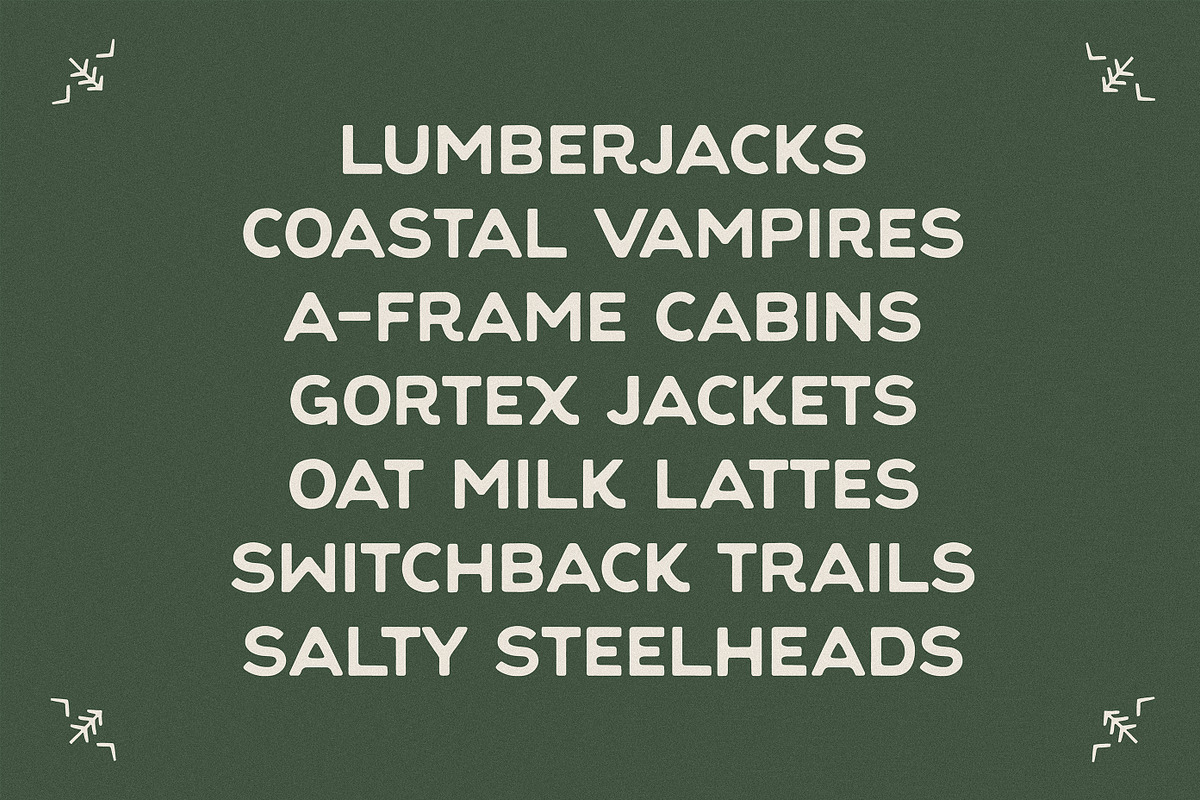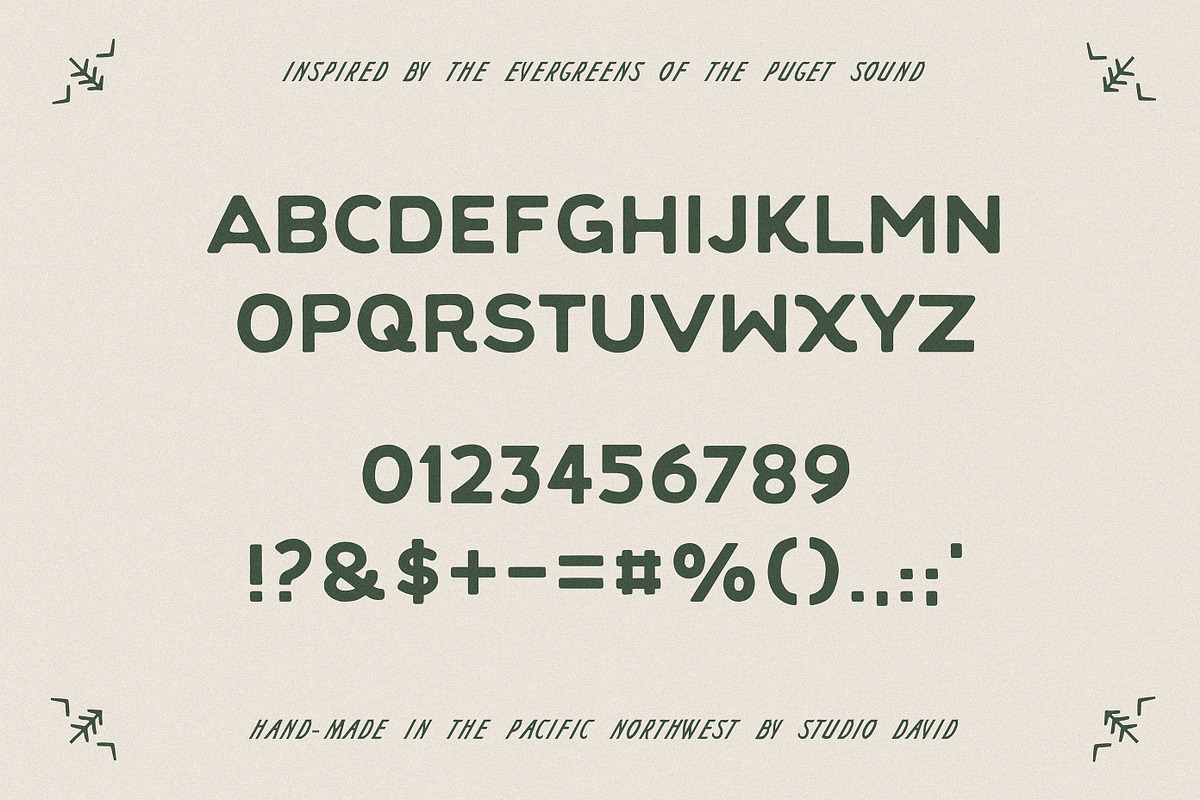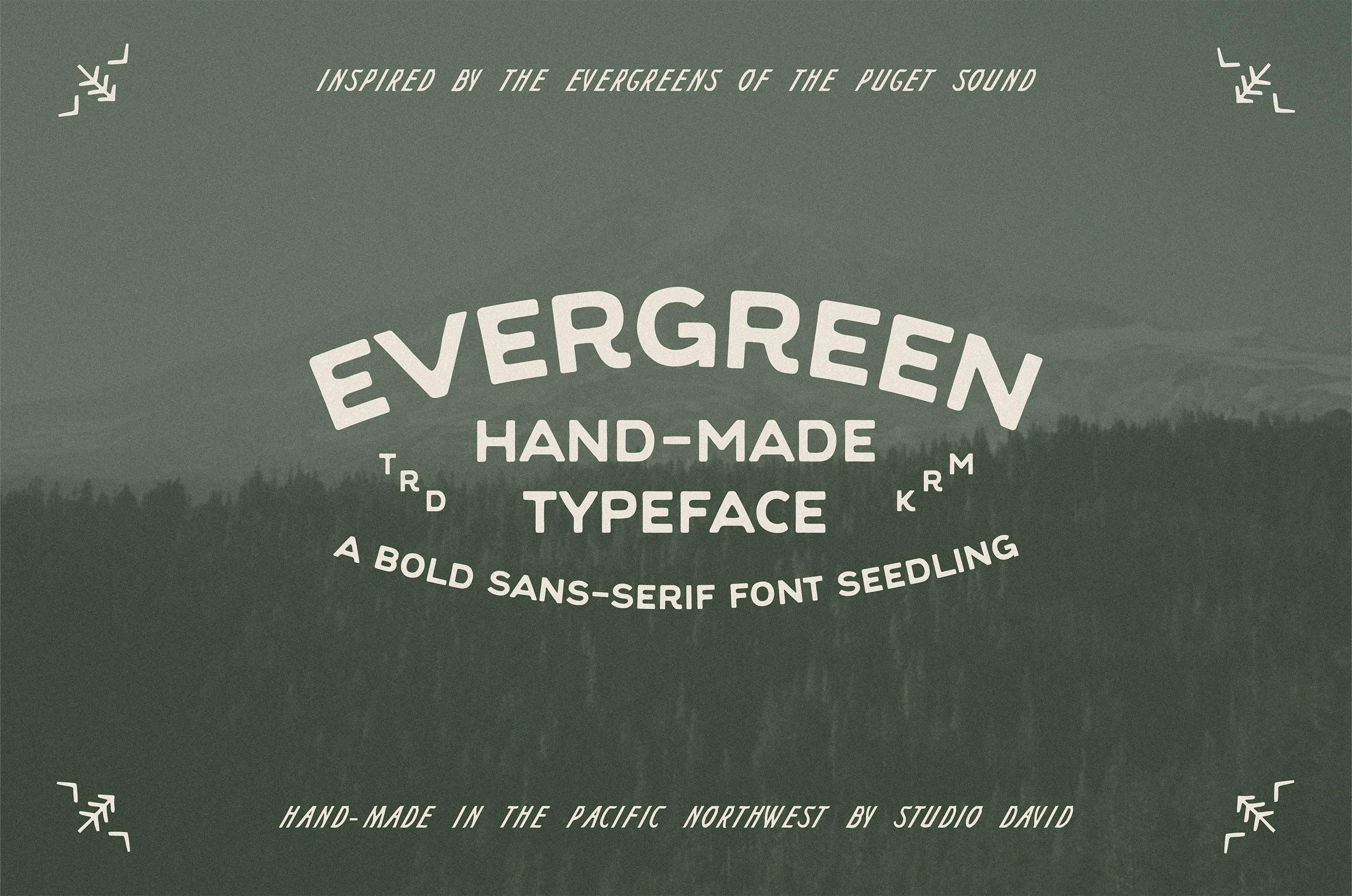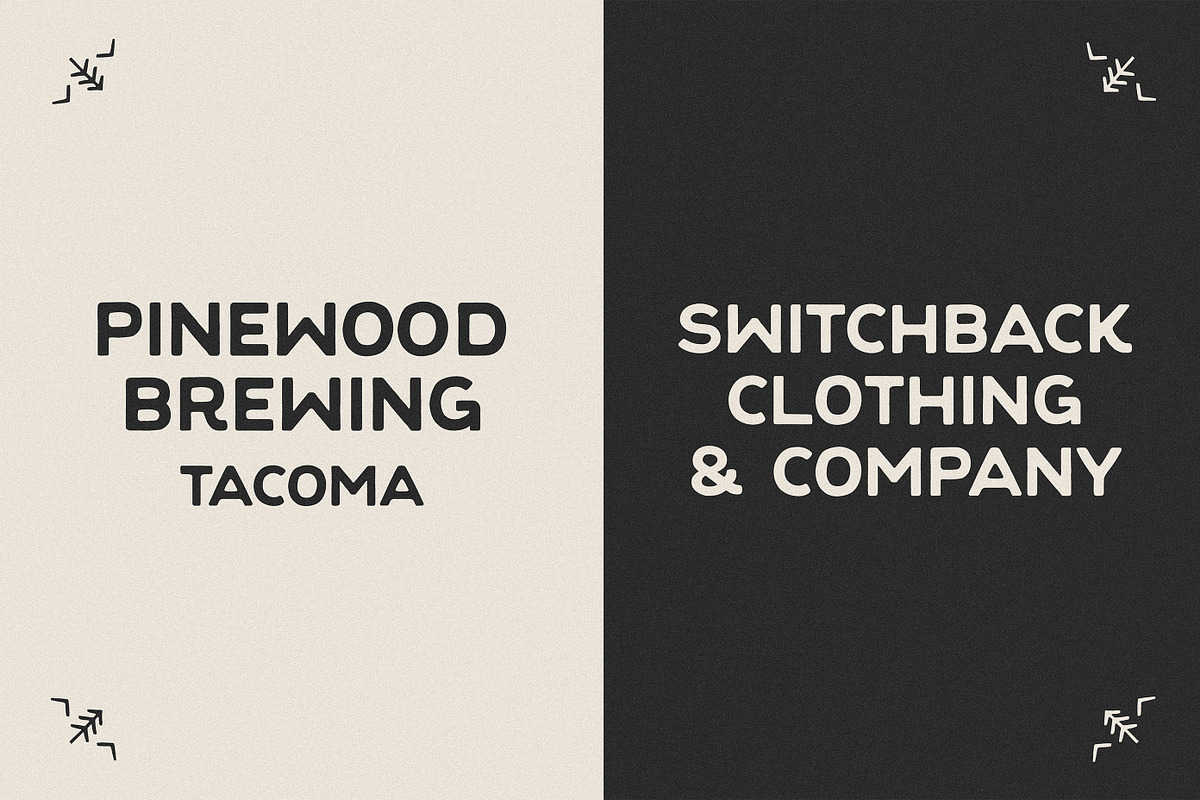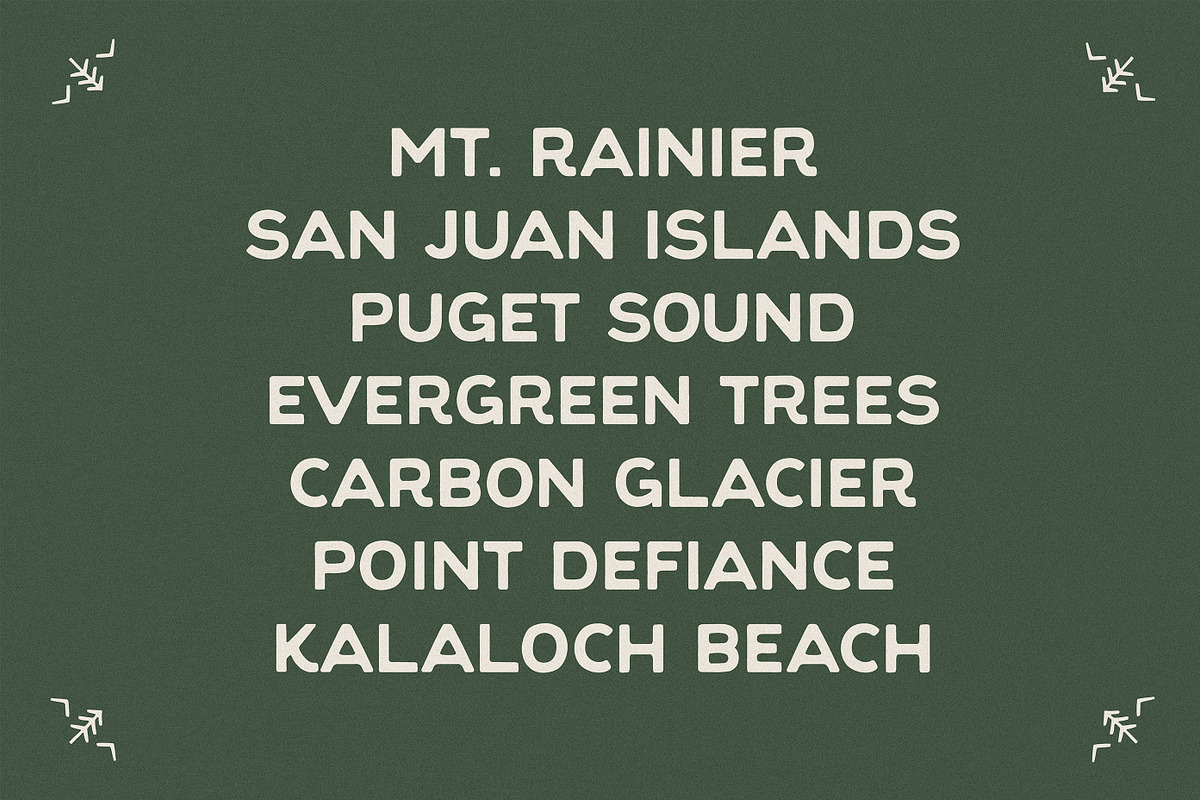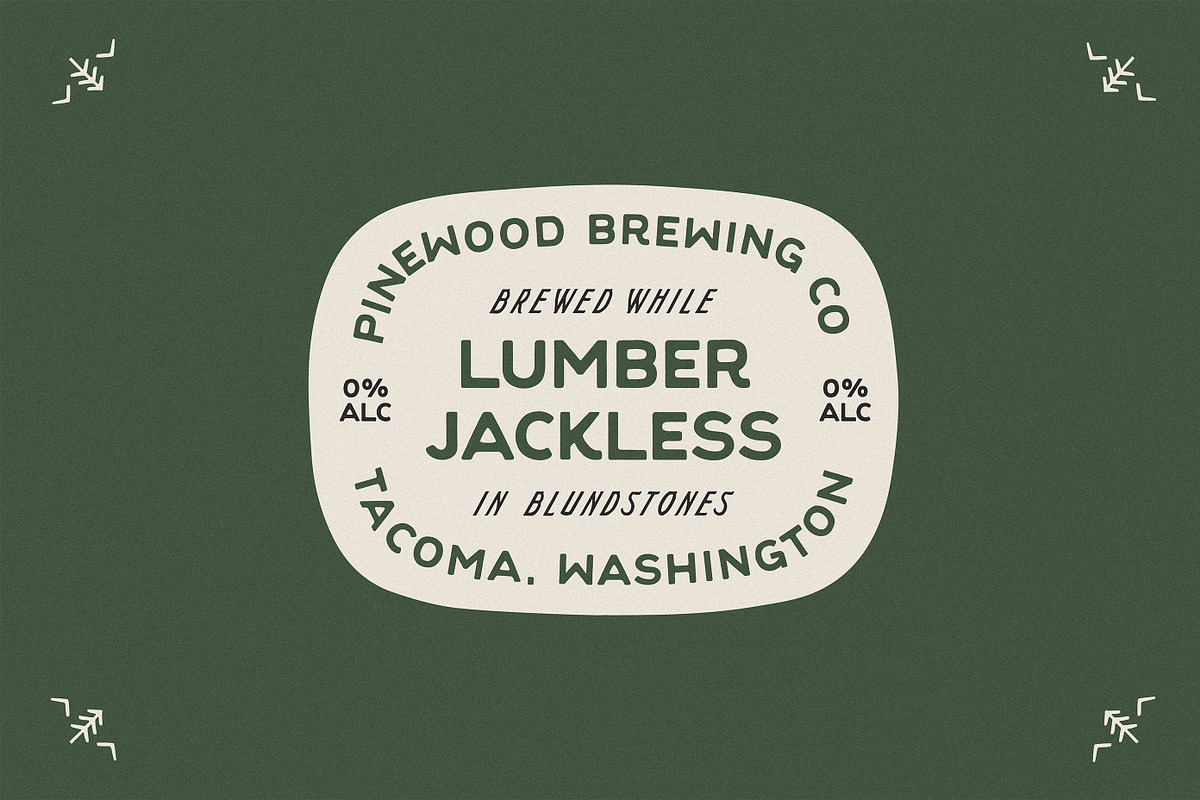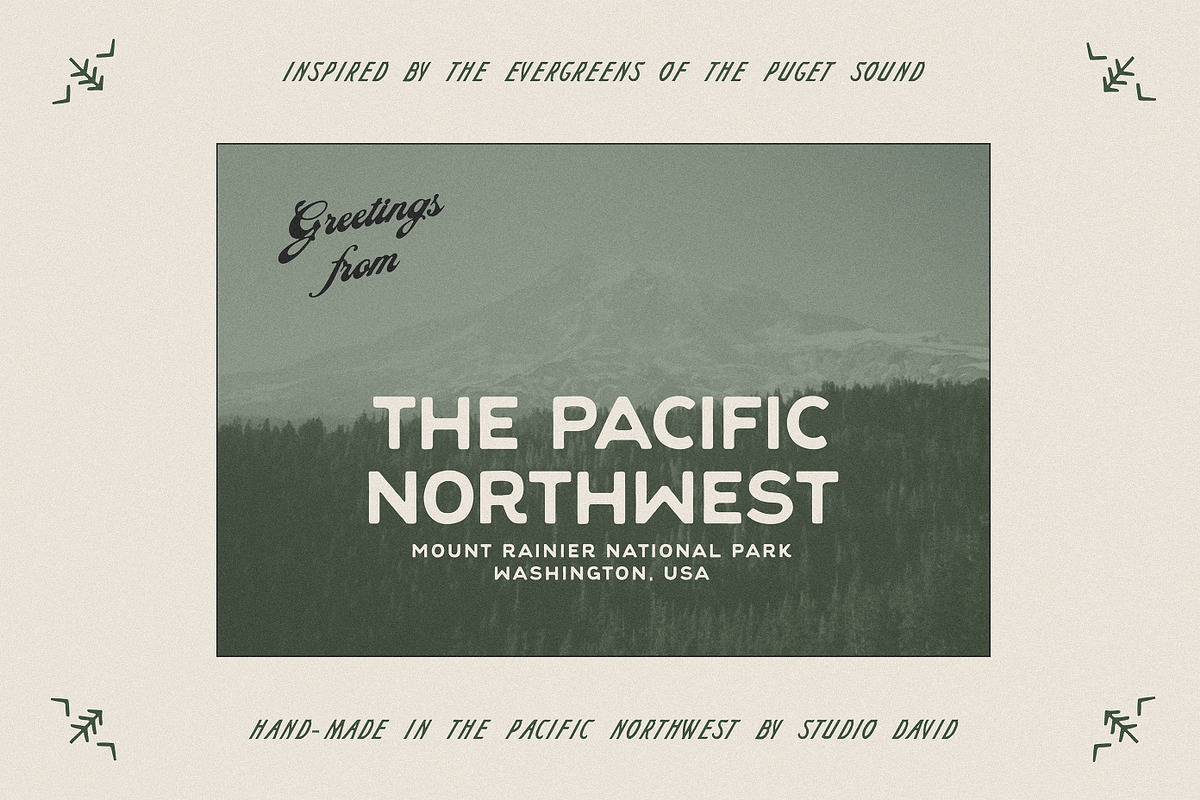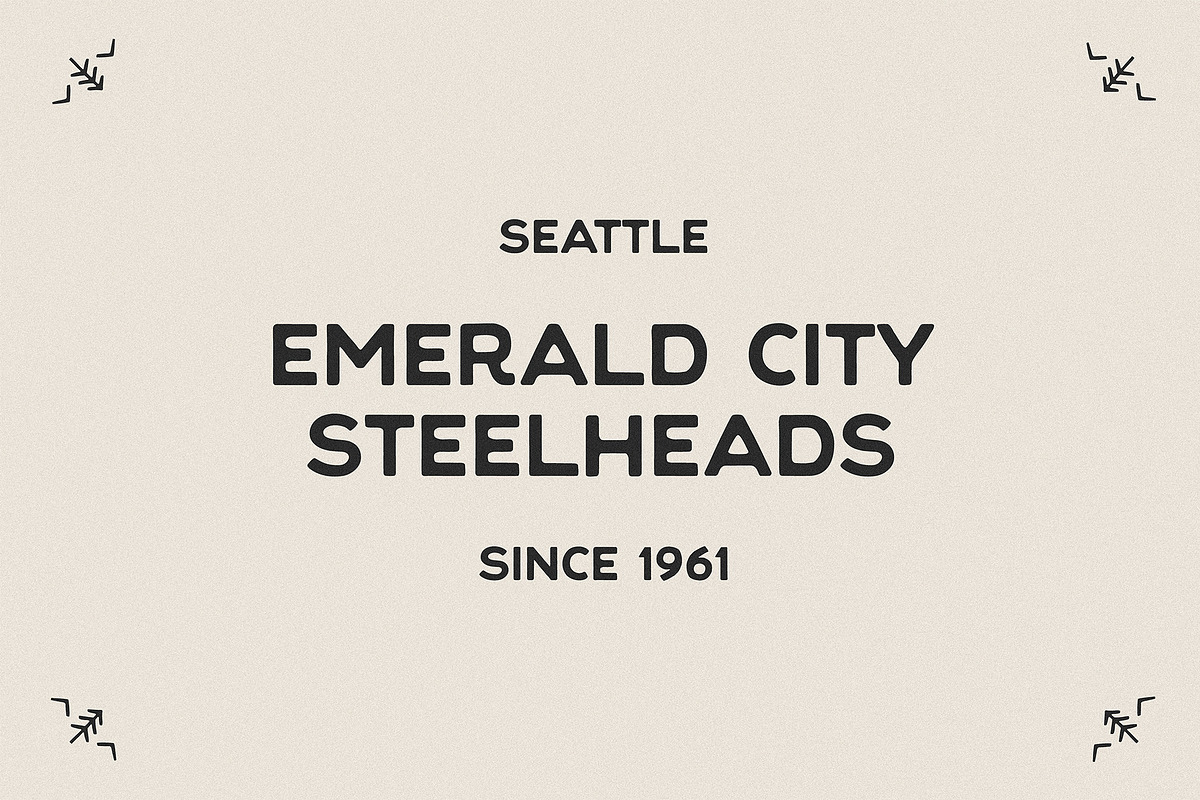
Evergreen Font
Evergreen is a hand-crafted font inspired by the evergreen trees of the Puget Sound in Washington State. With a mossy-like spirit, Evergreen is a fully functional all-caps font ready for both commercial and personal use. It includes numbers and punctuation. Evergreen is perfect for branding projects including identity systems, packaging, and logos.